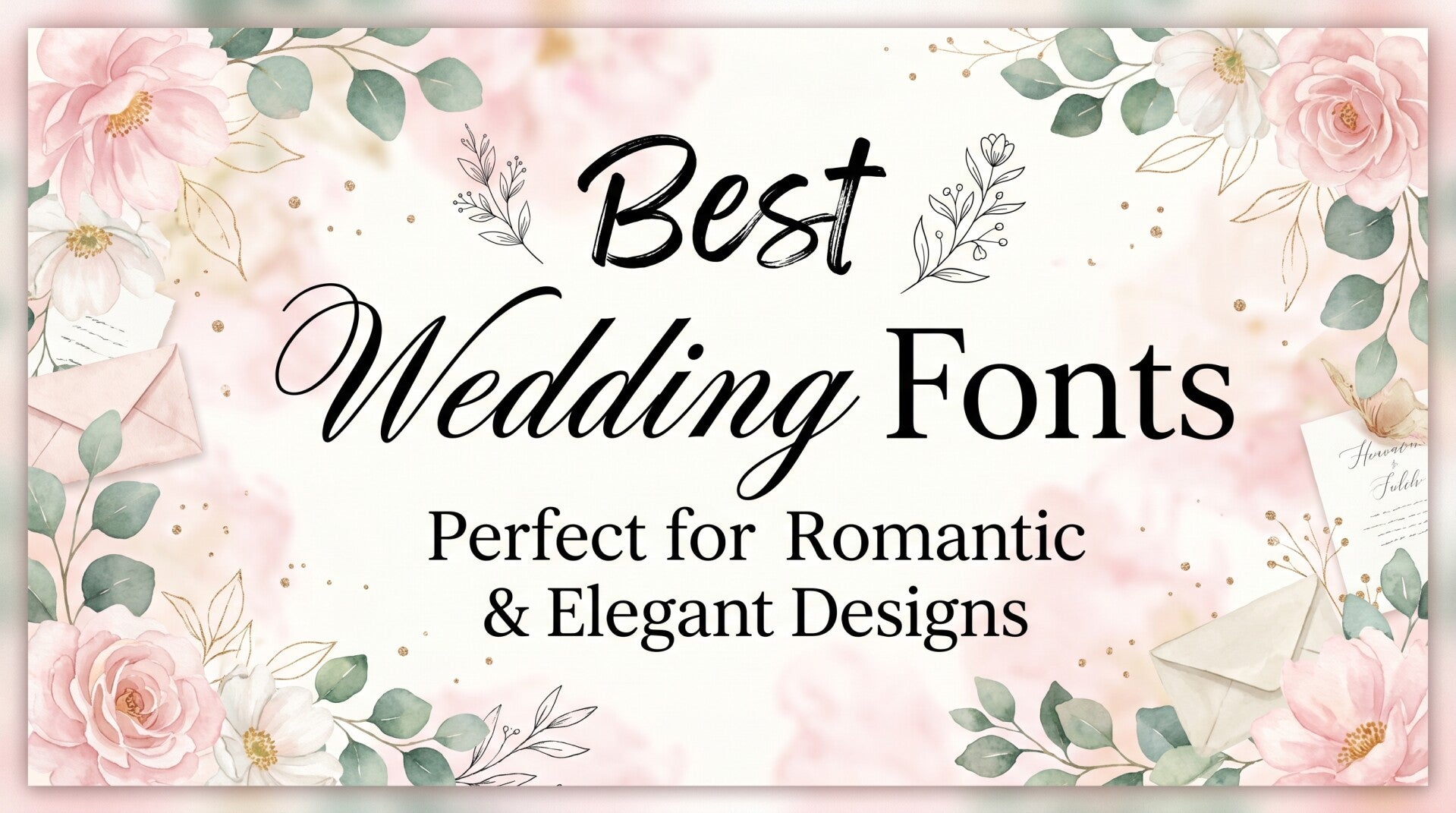
The right font sets the entire tone for your wedding. From the very first glance at your invitation, every elegant curve and delicate letterform tells your love story before a single word is even read.
This collection of best wedding fonts is handpicked for couples, designers, and DIY brides who want that perfect romantic touch — whether you're designing invitations, place cards, wedding logos, or signage. From flowing calligraphy scripts and soft serif elegance to whimsical handwritten styles that feel personal and dreamy — these fonts are everything a romantic wedding deserves. ππΈ
Wedding Fonts
for Every Style
A curated selection of script, monogram, decorative, and display typefaces β organized by style to help you find the perfect match for your wedding stationery, branding, or craft project.
Script & Calligraphy
30 fontsFlowing, handwritten scripts ranging from refined calligraphy to casual brushwork β ideal for invitations, vows, signage, and logos.
Wedding Enchanting
Sophisticated romantic script balancing delicate elegance with timeless charm. Perfect for wedding stationery.
Wedding
Stylish script with graceful strokes and fluid curves β great for logos, invitations, and packaging.
Wedding Birthday
Neat handwritten font with flowing lines β adds sophistication to invitations and branding materials.
Wedding Dream
Charming and elegant PUA-encoded script β stunning on cards, invitations, and logo designs.
The Wedding Signature
Neatly crafted, highly detailed script font β a beautiful and versatile addition to any font library.
Wedding Day
Delicate script exuding beauty and sentimentality β PUA encoded with swashes and alternates.
Wedding (Flowing)
Flowing handwritten font capturing the artful elegance of traditional calligraphy with a timeless touch.
Wedding Flowers
Sweet, delicate script with characters dancing along the baseline β adds luxury to any project.
Wedding Beauty
Luxurious script with long flourishes and rhythmic flow β perfect for high-end stationery and branding.
Royal Wedding
Elegant script ideal for branding, logos, and t-shirt printing β confident and versatile.
August Wedding
Romantic calligraphy with sweeping swashes β a premier choice for luxury bridal branding. PUA encoded.
Wedding Nayla
Supremely elegant script with graceful letterforms β turns every word into a visual masterpiece.
Wedding Natalia
Suave and sophisticated script with beautifully curved strokes β poetic and timelessly romantic.
Elegant Wedding
Delicate, fashionable PUA-encoded script β perfect for logos, t-shirts, and creative projects.
Violyn Wedding Thivoria
Refined calligraphy with flowing letterforms and stylistic alternates β a modern luxury typeface.
Wedding Signature
Beautiful calligraphy handwritten font with PUA glyphs and ligatures β great for any project.
Wedding Script
Gorgeously ornamented and elegant β perfect for wedding invitations, menus, and logos.
Rustic Wedding
Modern calligraphy with ligatures, swashes, and alternates β stunning for rustic invitations and logos.
Romeo Wedding
Beautiful calligraphy with PUA glyphs and ligatures β versatile for crafts, cards, and digital designs.
Pretty Wedding